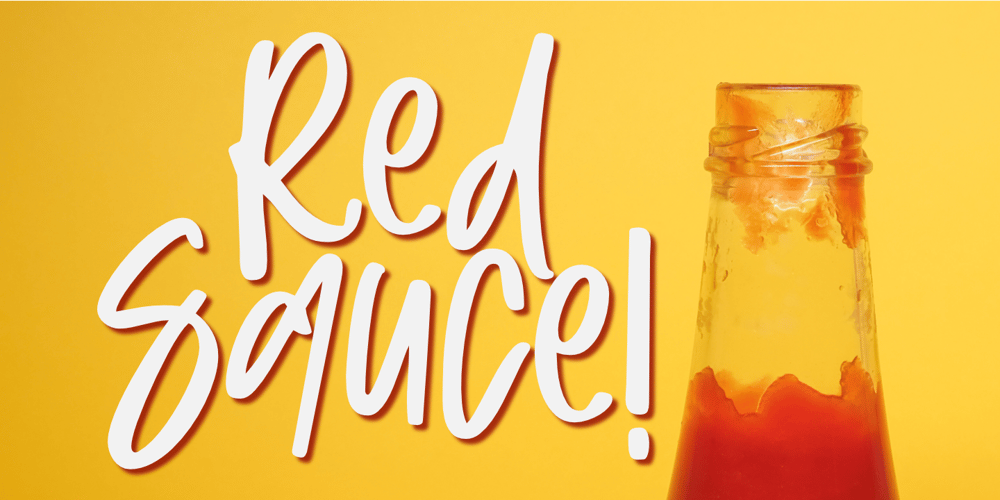
Red Sauce Font Family was designed by Nurul Hidayani and published by Olivetype. Red Sauce contains 1 styles and family package options. It’s time to get down and red. Freshly released, Red Sauce is a fun and stylish typeface with a cool and playful vibe to it. Use our new typeface to give your design the style it deserves. From badges and logos to posters and t-shirts, Red Sauce has you covered.So what’s included : Basic Latin Uppercase and Lowercase Numbers, symbols, and punctuations Ligatures Multilingual Support. Simple Installations Works on PC & Mac